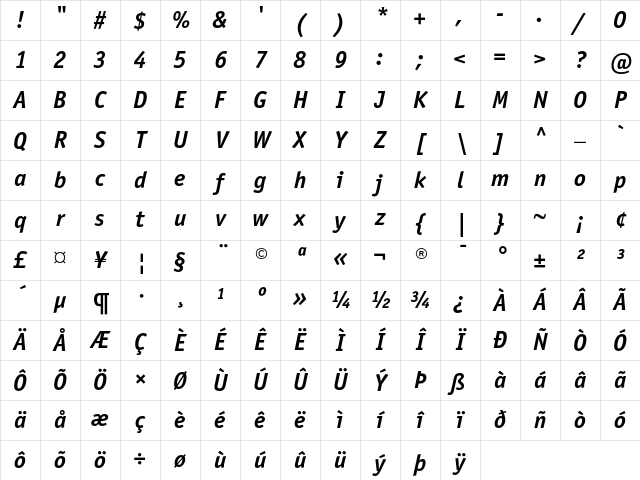
ITC Officina Sans Bold Italic
ITC Officina Sans Family
ITC Officina Sans Bold Italic
Complete ITC Officina Sans Bold Italic glyph index. Displaying only characters natively supported by ITC Officina Sans Bold Italic font.
Design Context for ITC Officina Sans
ITC Officina Sans is a composed and adaptable typeface that performs quietly and consistently across a wide range of design contexts. The slanted form adds forward momentum and visual energy. Its bold stroke weight gives it real presence on the page.
Pro Tip: Use ITC Officina Sans for emphasis, pull quotes, and subheadings where its slanted energy can add rhythm to the layout.